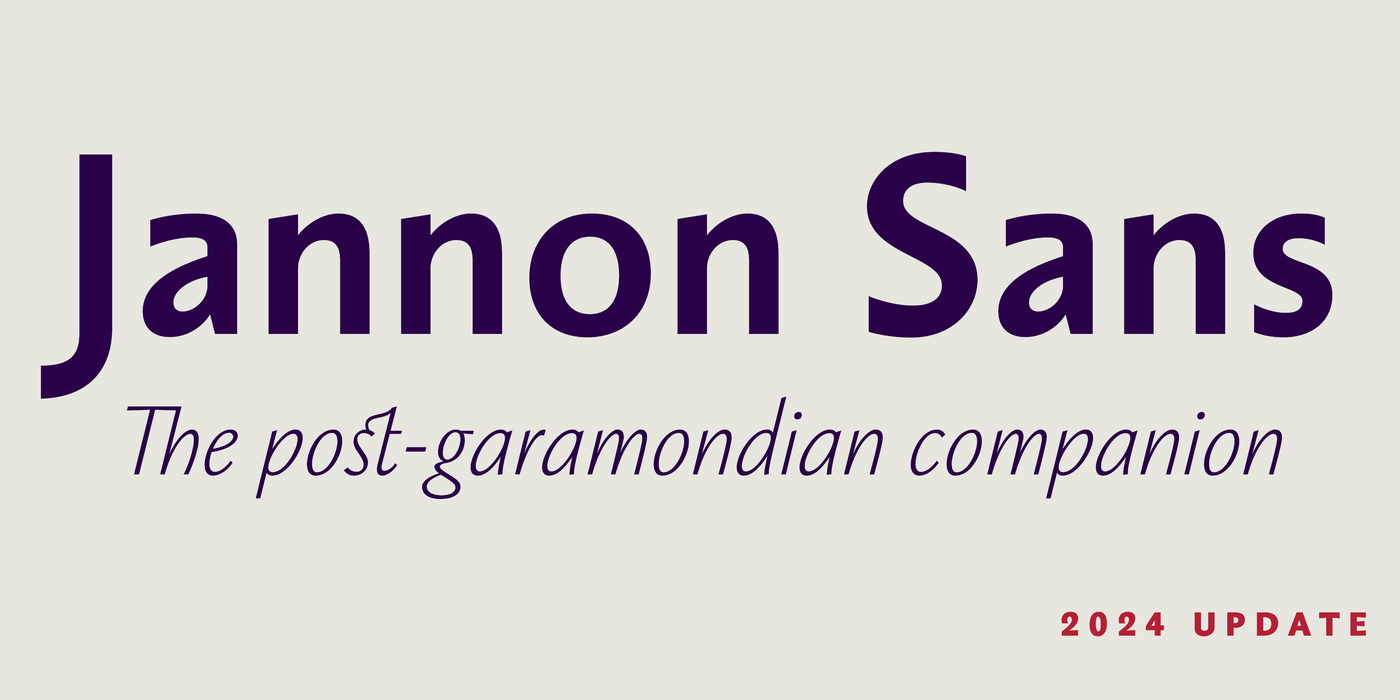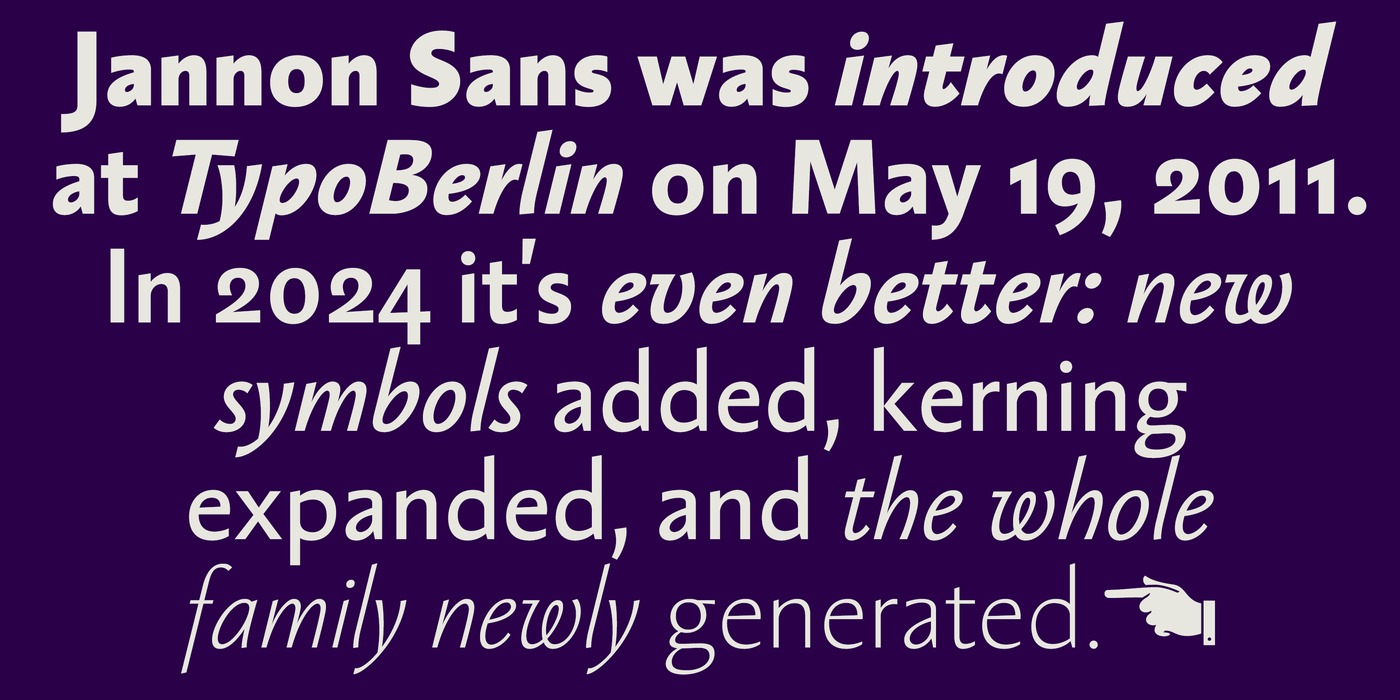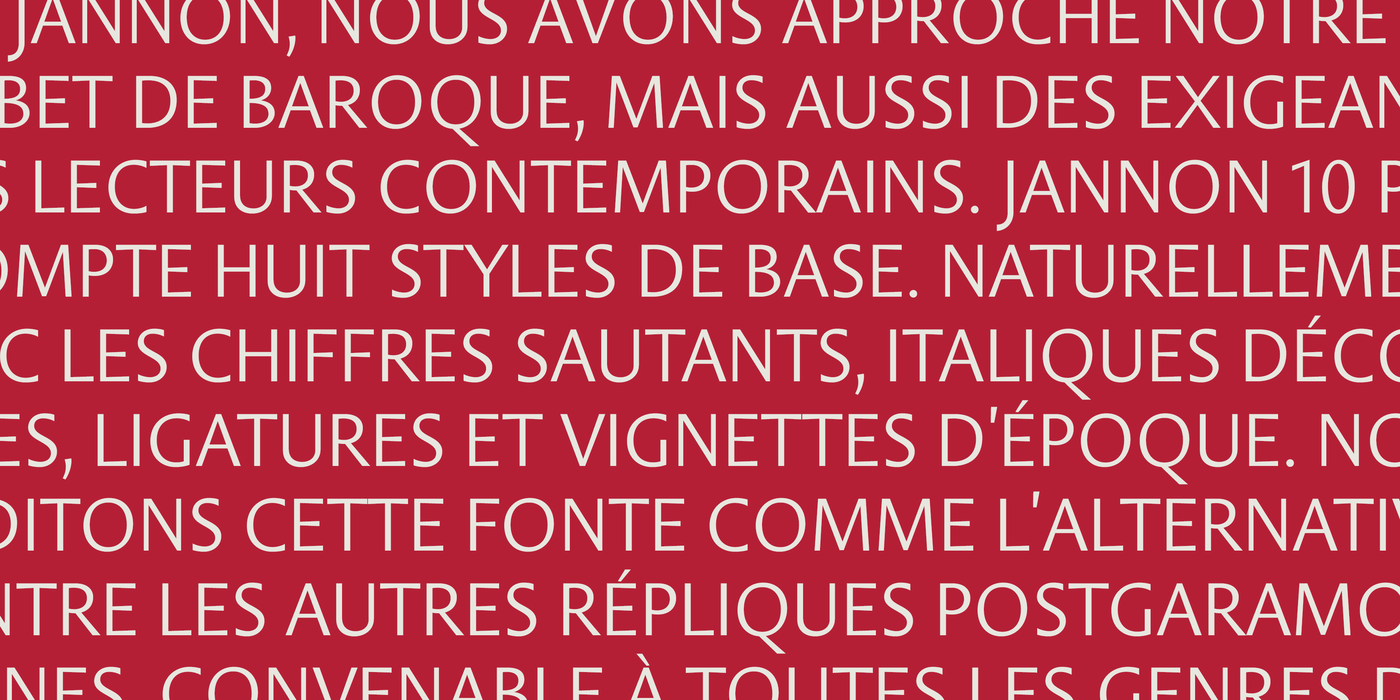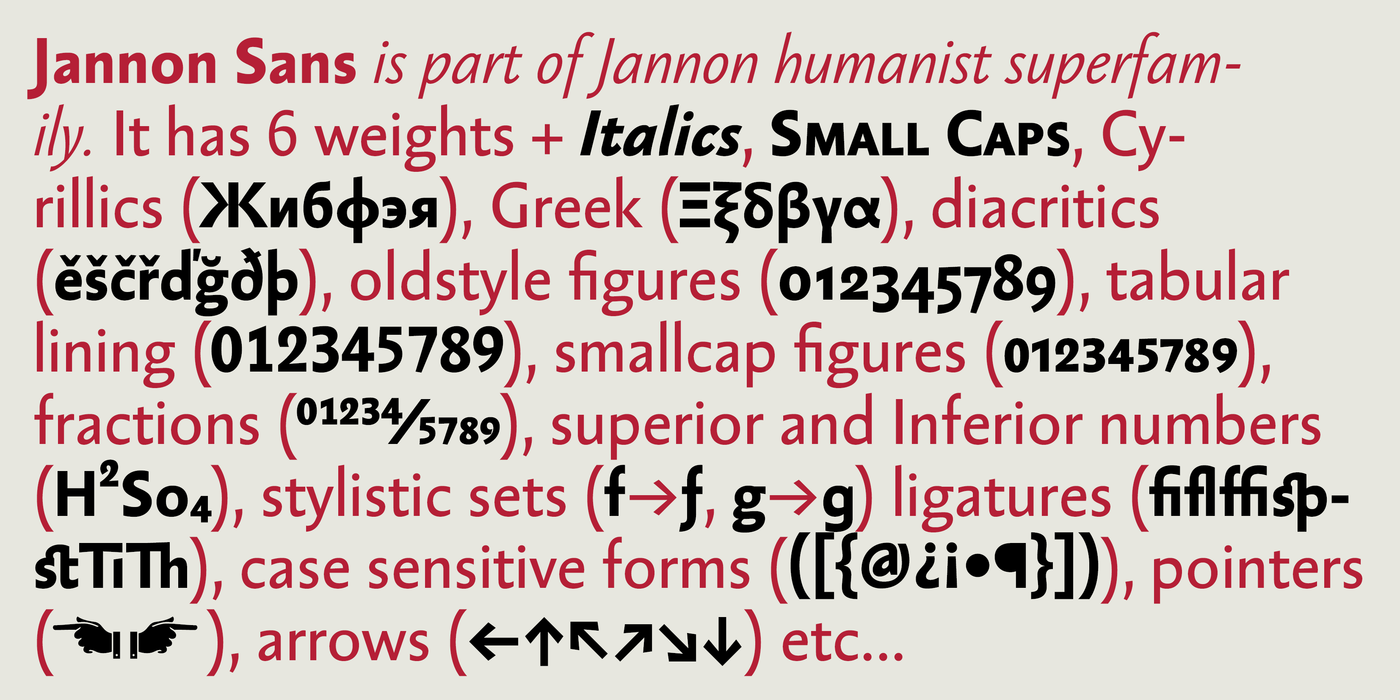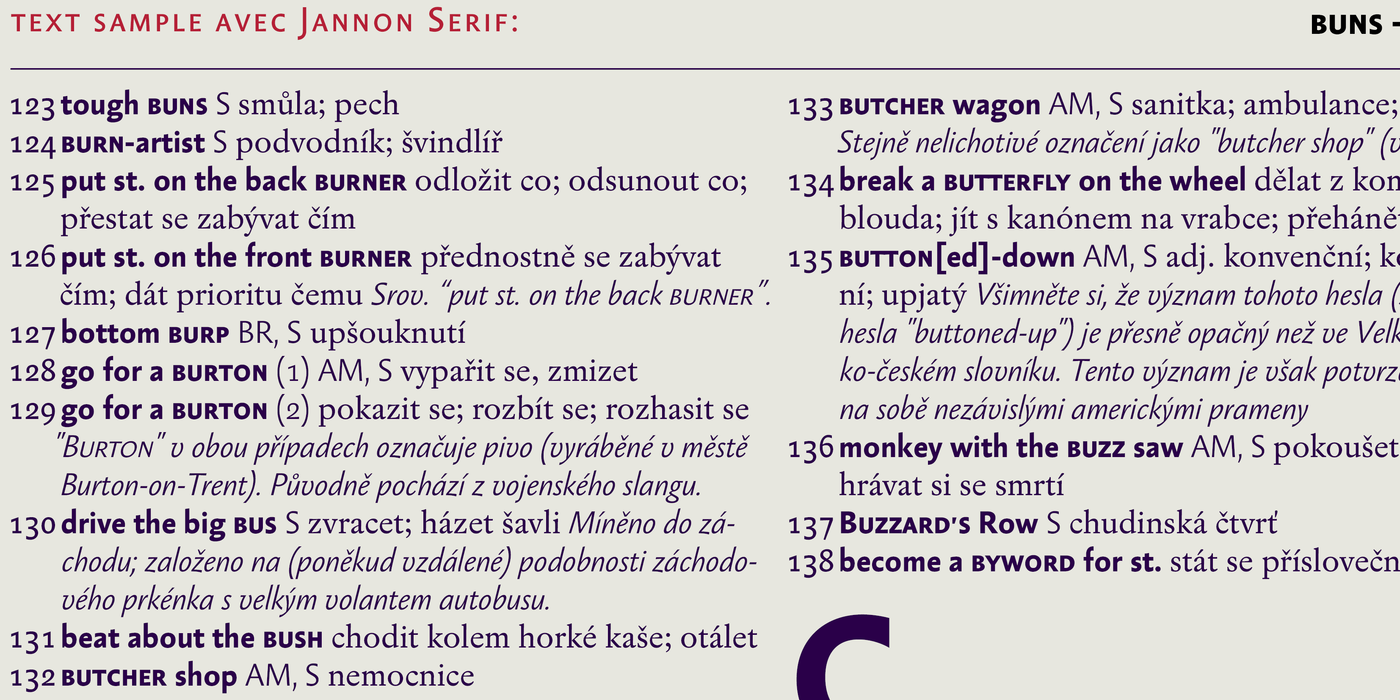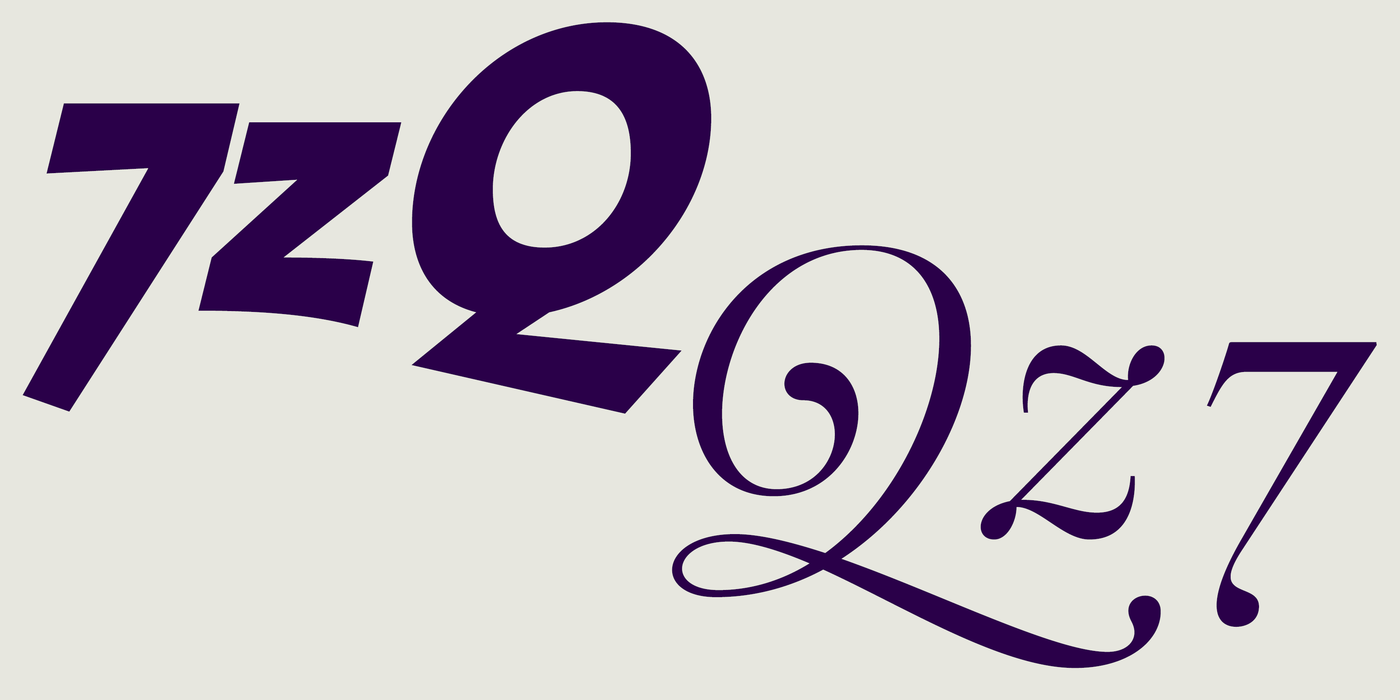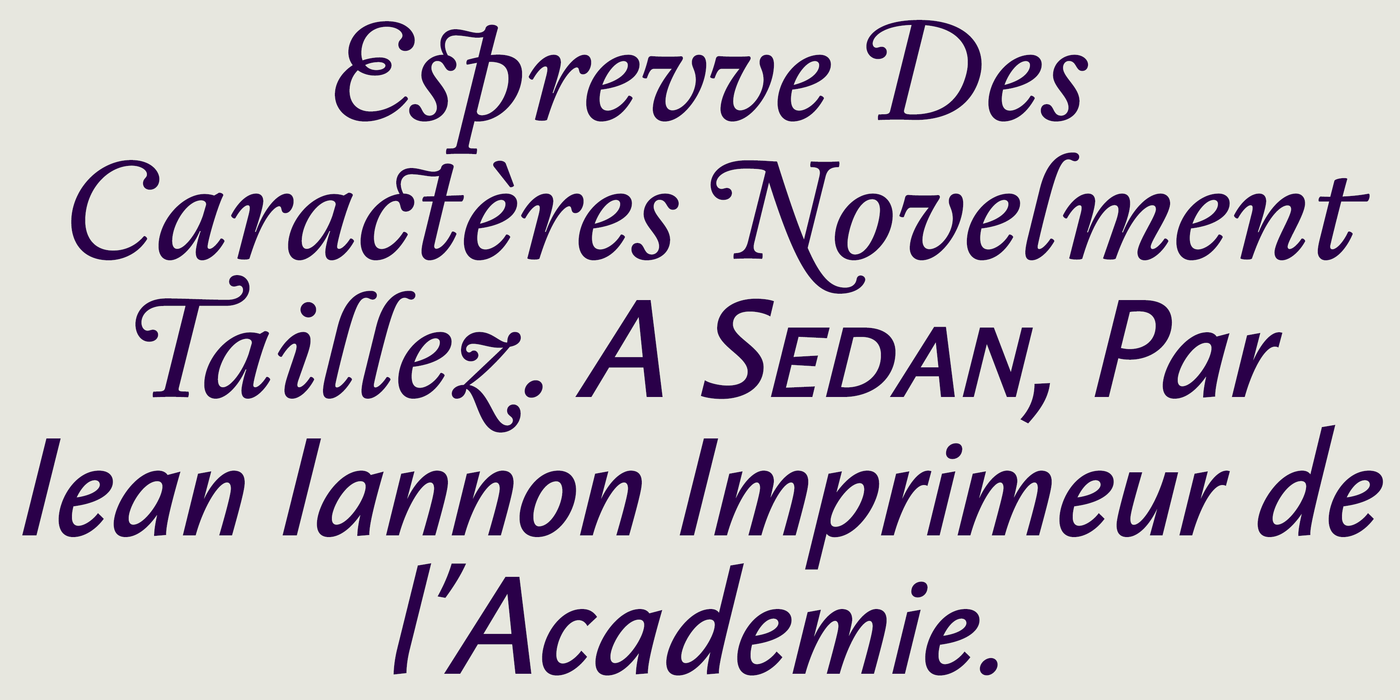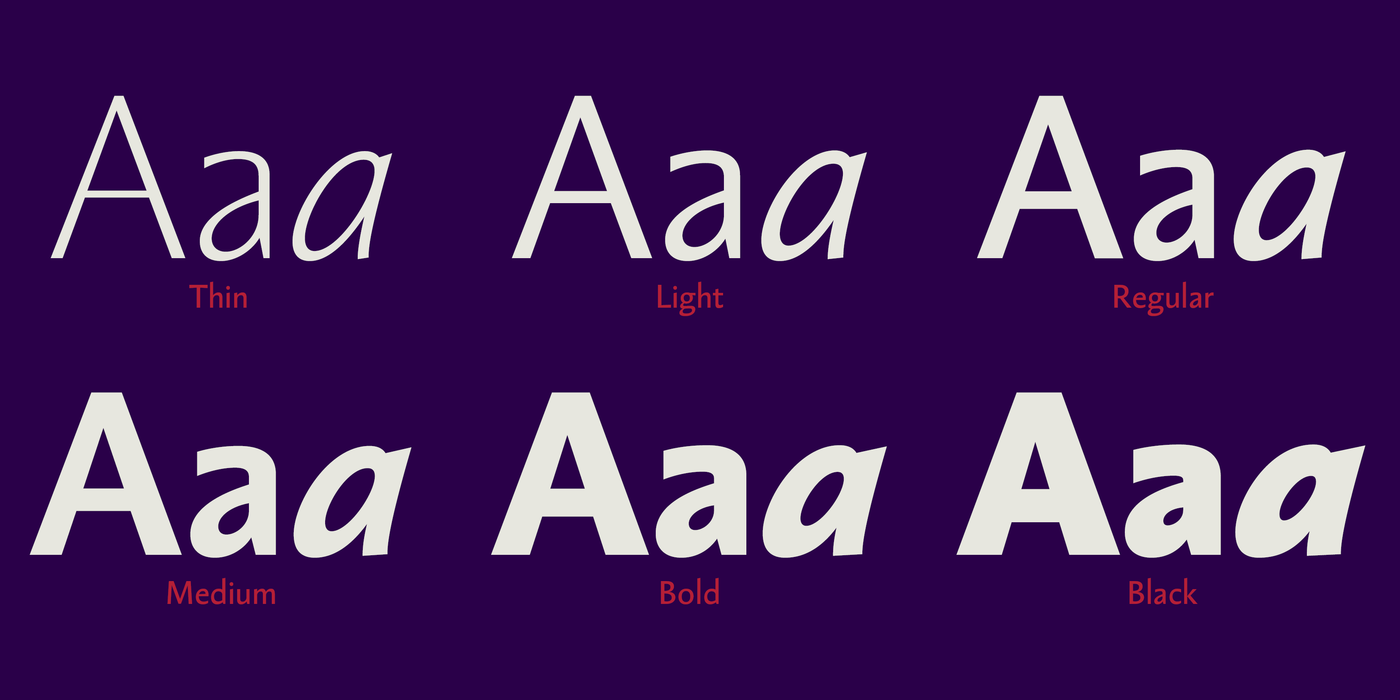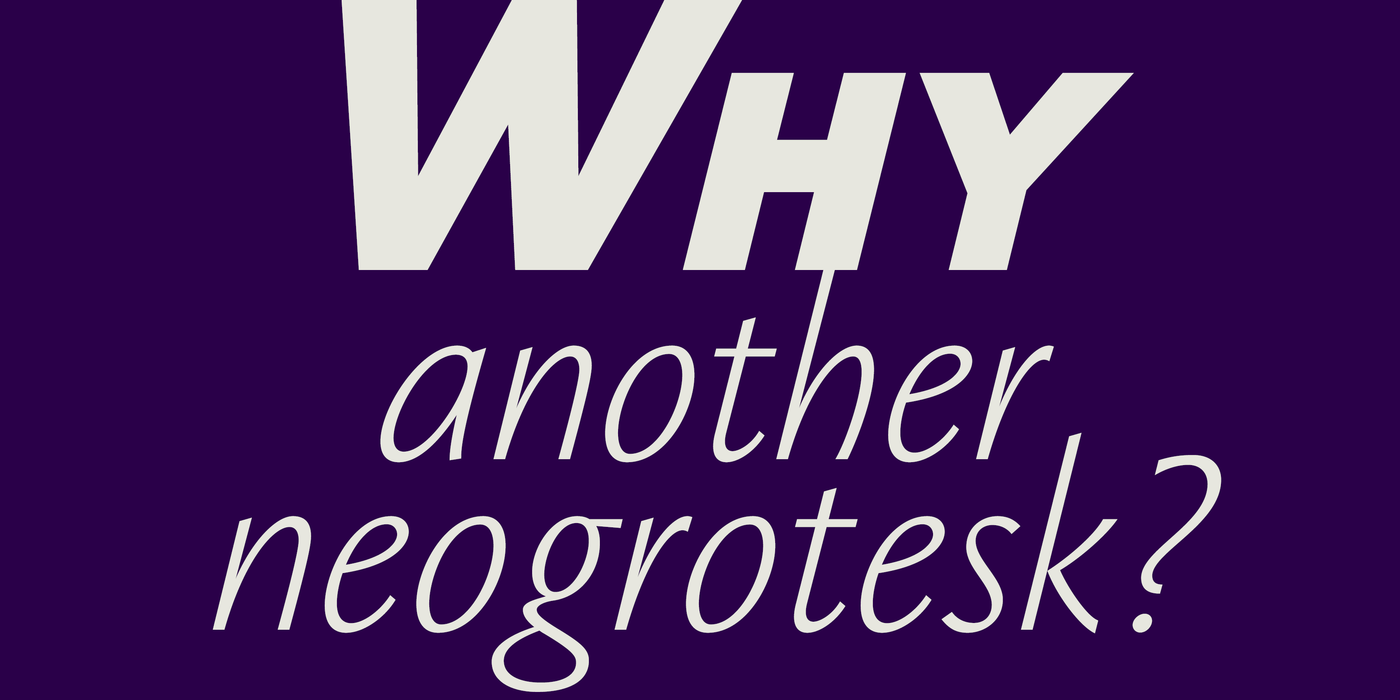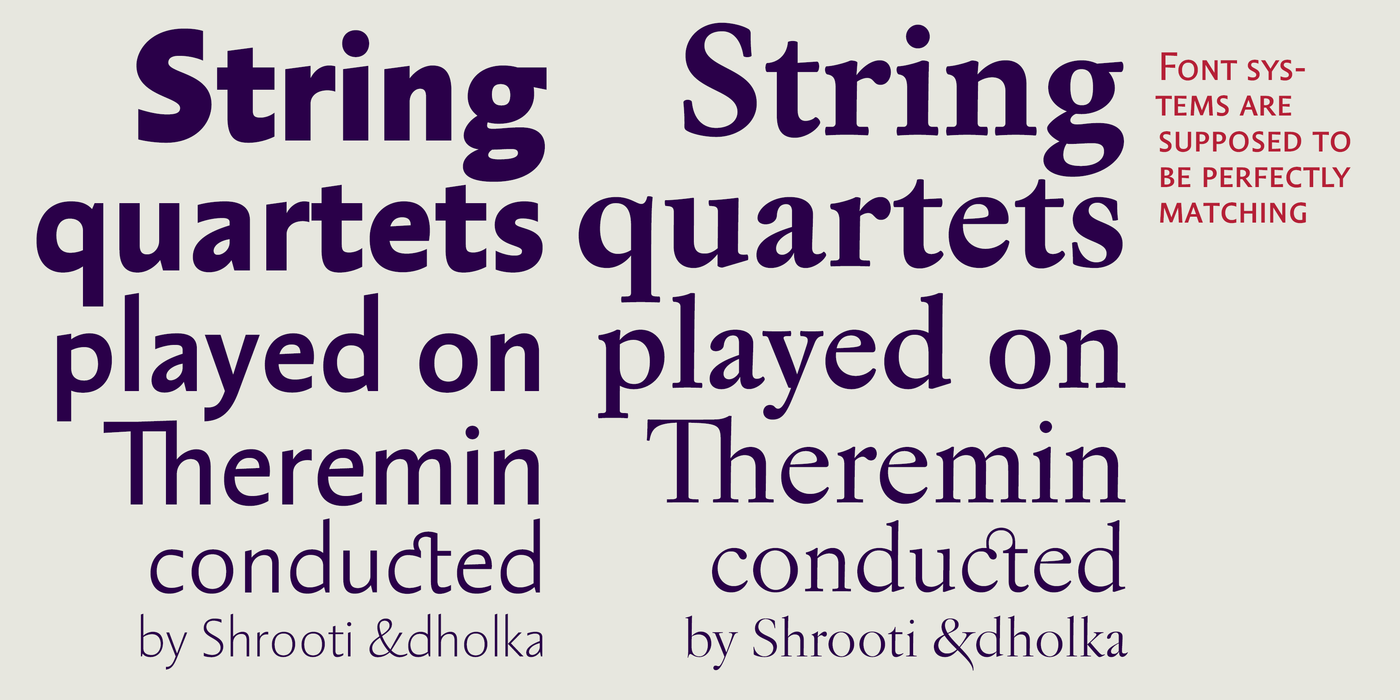
by František Štorm
Designing font family systems has become a fashion ever since the beginning of digital typography. Our classical type revivals Baskerville and Walbaum also have their sans-serif counterparts. The present Jannon Sans is ready for use along with Jannon serif whenever you need to print texts of complex structure, such as catalogues, dictionaries and encyclopaedias. As stand alone, it works well for invitations, posters and also in architecture thanks to its monumental proportions.
Navrhování písmových systémů se stalo módou již od počátků digitální typografie. Naše klasické písmové revivaly Baskerville a Walbaum také mají své bezserifové protějšky. Jannon Sans je připraven k použití vedle Janonu serifového kdekoli potřebujeme tisknout složitě strukturované texty jako jsou katalogy, slovníky i encyklopedie. Samostatně dobře slouží k úpravě pozvánek, plakátů a také v architektuře díky svým monumentálním proporcím.